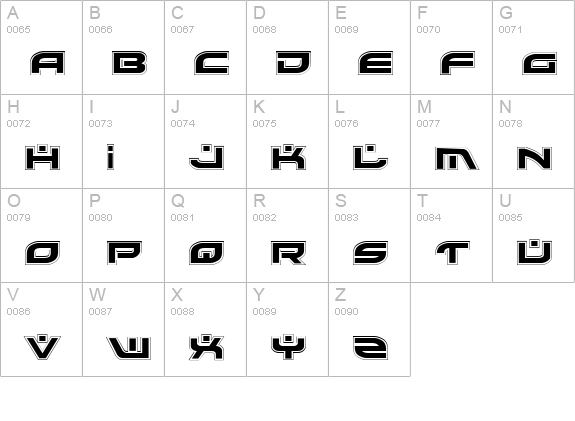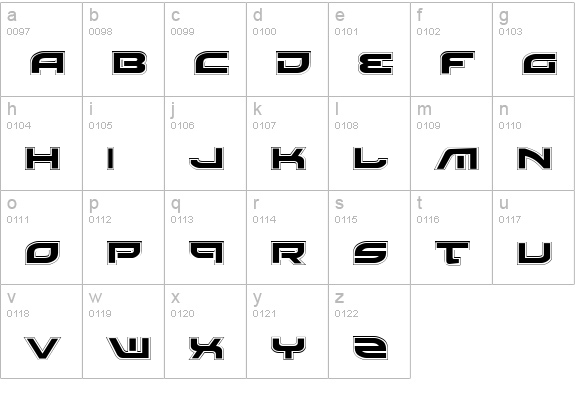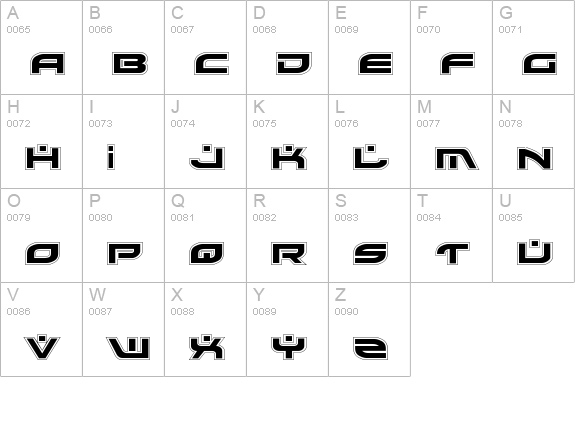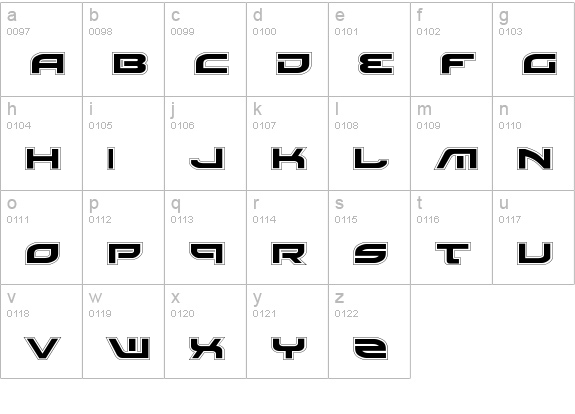
Introducing Battlefield Pro font, a sleek and modern typeface designed for those looking to add a touch of sophistication to their projects. With its clean lines and sharp edges, Battlefield Pro exudes professionalism and versatility, making it the perfect choice for a wide range of design applications. What sets Battlefield Pro font apart is not only its striking aesthetics but also the fact that it is available for free download at FontsMarket.com. This means that you can elevate your designs without breaking the bank, making it a valuable addition to any designer's toolkit. Whether you're working on a branding project, editorial design, or any other creative endeavor, Battlefield Pro font will help you achieve a polished and refined look. Don't miss out on this opportunity to enhance your designs with this premium font, available for free at FontsMarket.com.